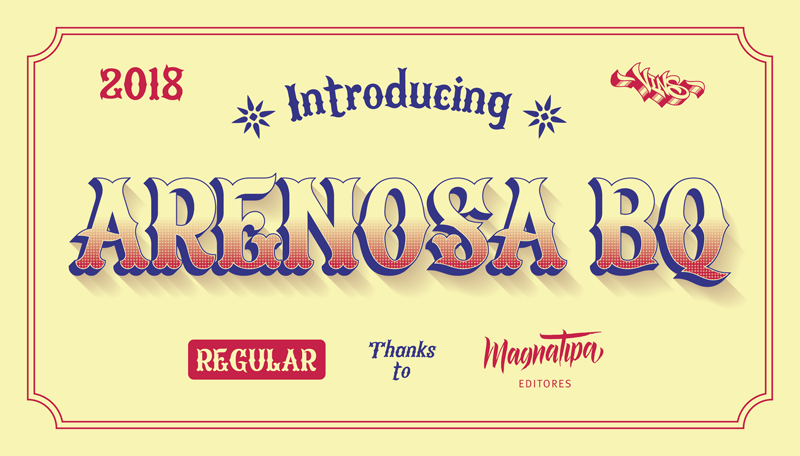
Preview and download Arenosa BQ Font. Created by Mauricio Vides Anillo in Fancy Western styles with Demo license.
Copyright (c) 2018, Mauricio Vides Introducing Arenosa BQ. Arenosa BQ are inspired by the popular graphics of the city of Barranquilla, it�s perfect to emulate the popular graphics of the city. The structure of Arenosa BQ has a combination of Tuscan and Handwritten styles but with a modern look. The fonts are excellent for the design of posters, logos, illustrations or allusive pieces in the city of Barranquilla. |